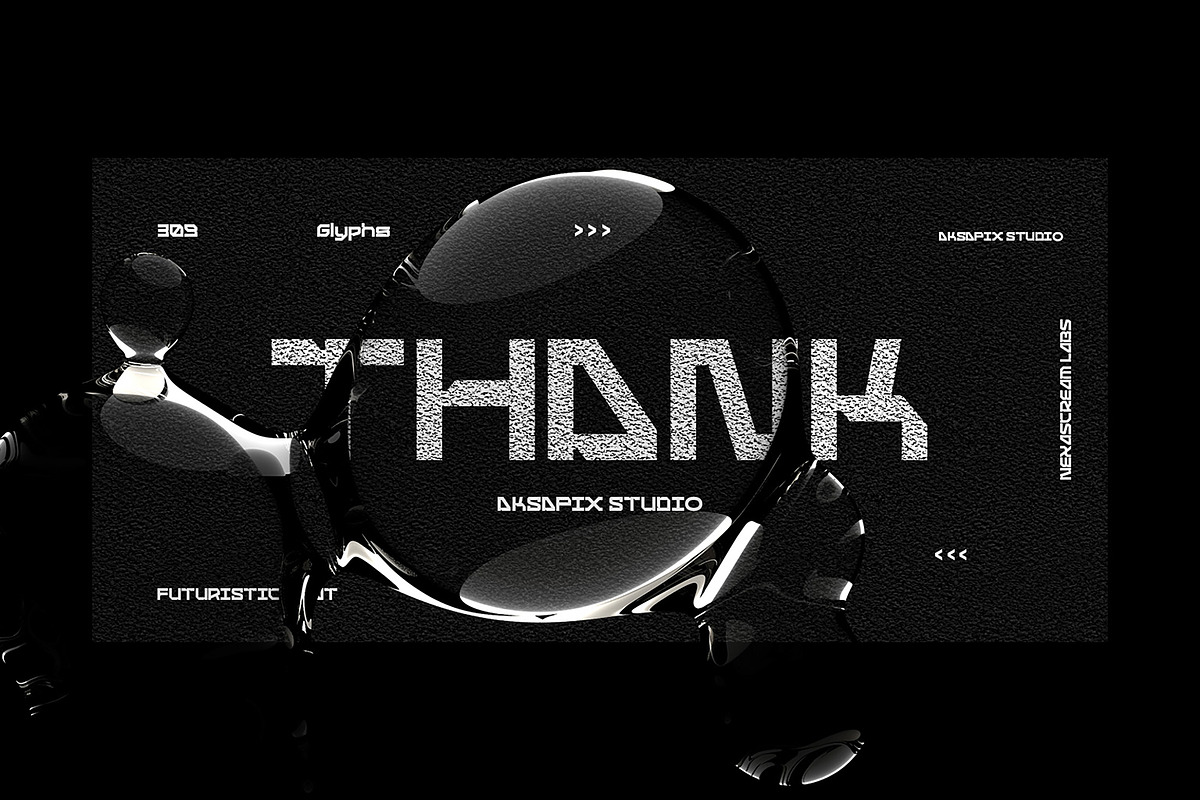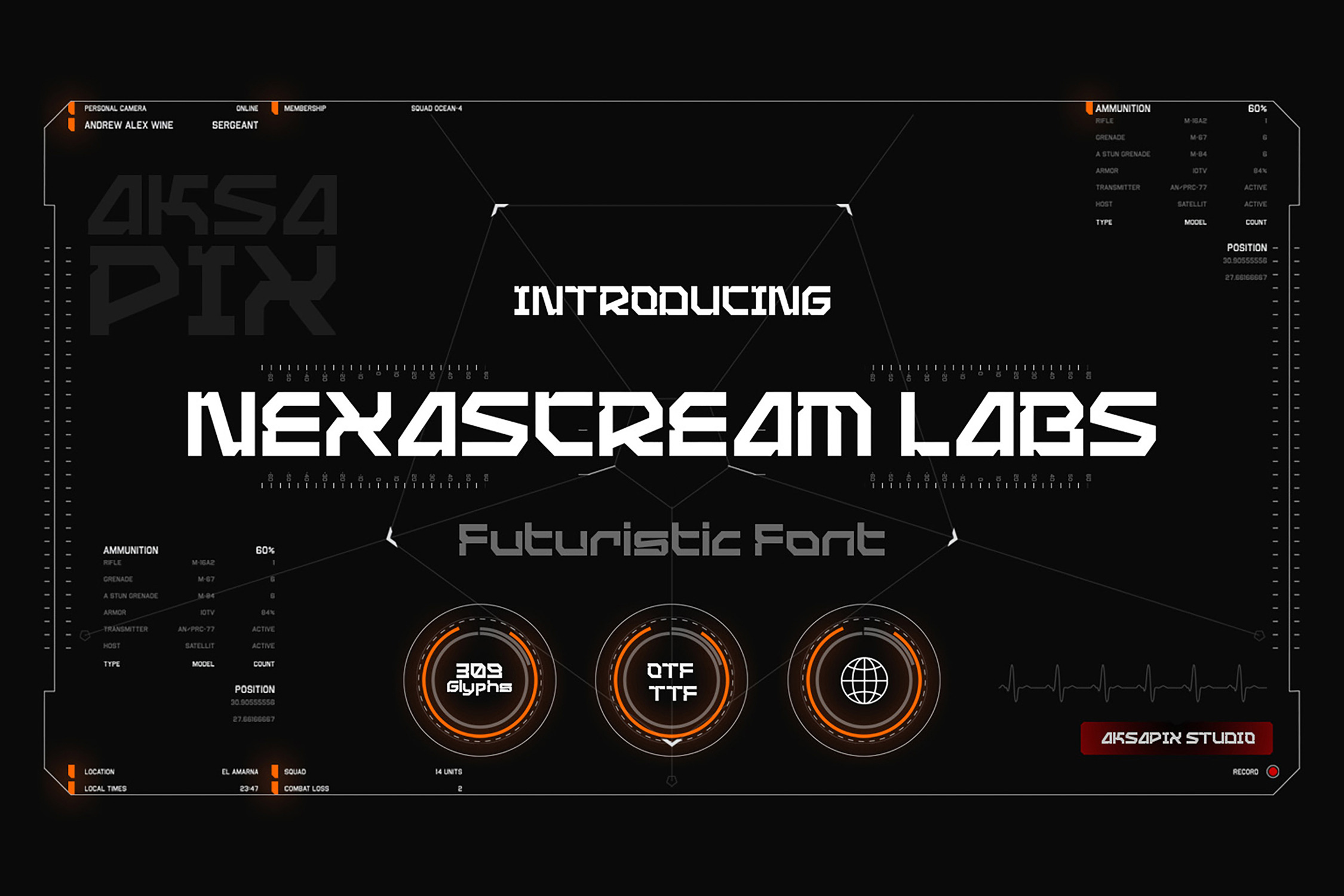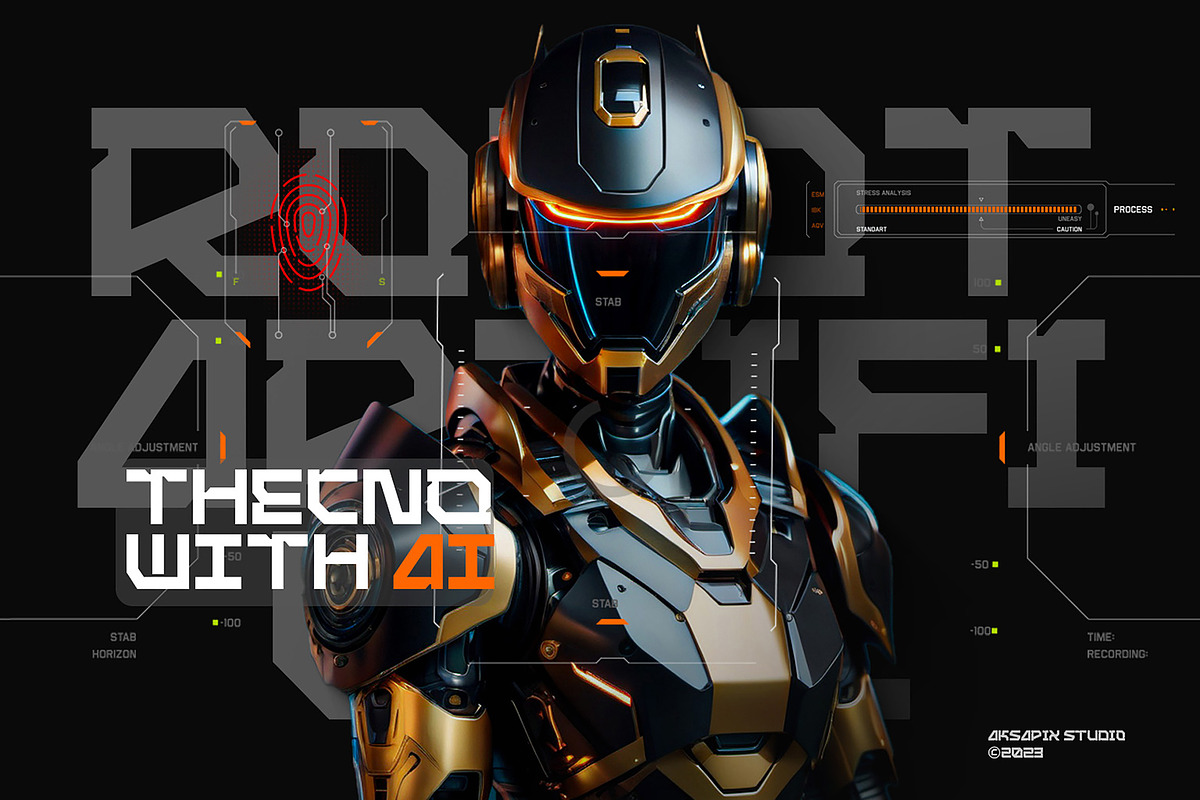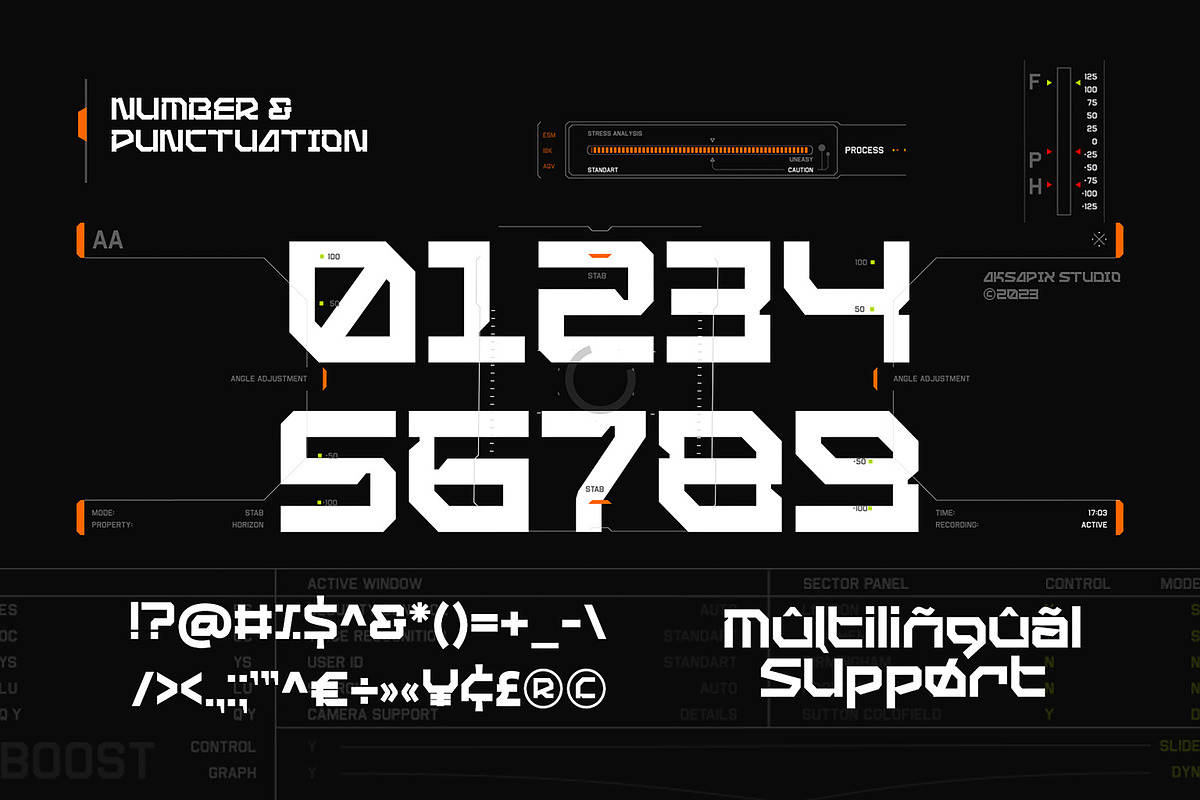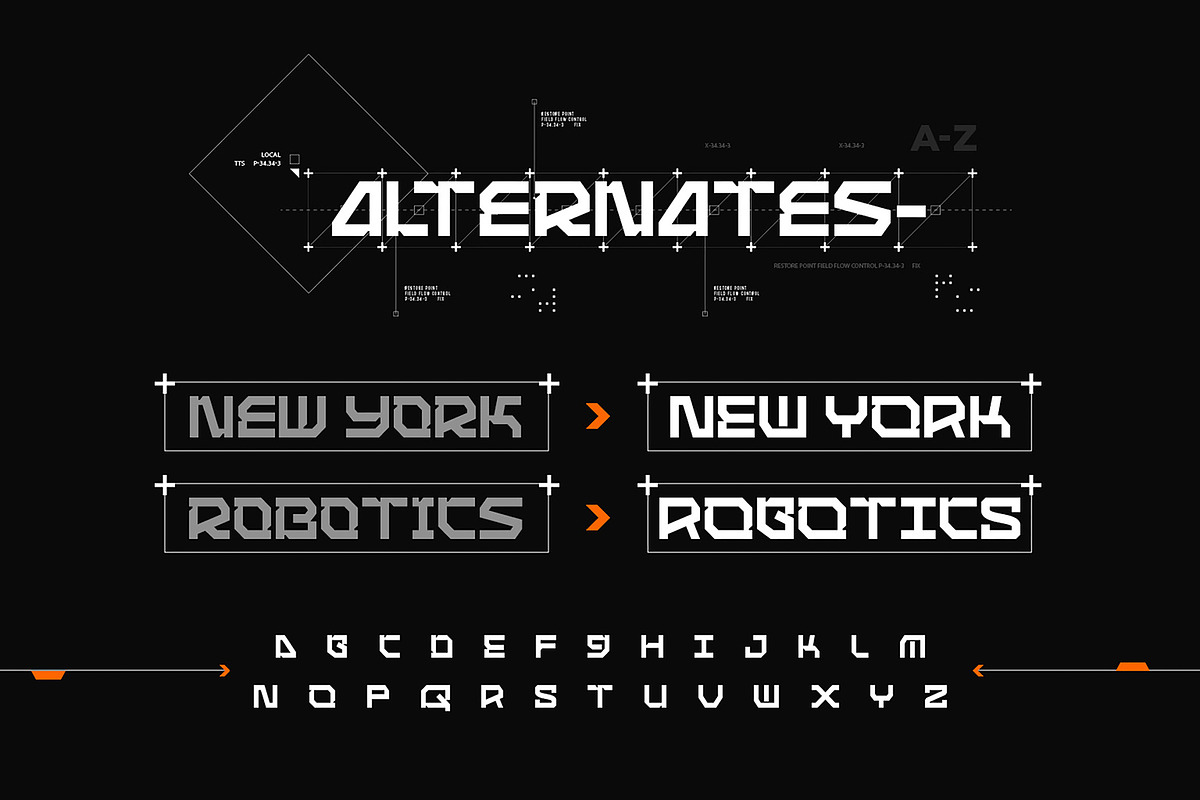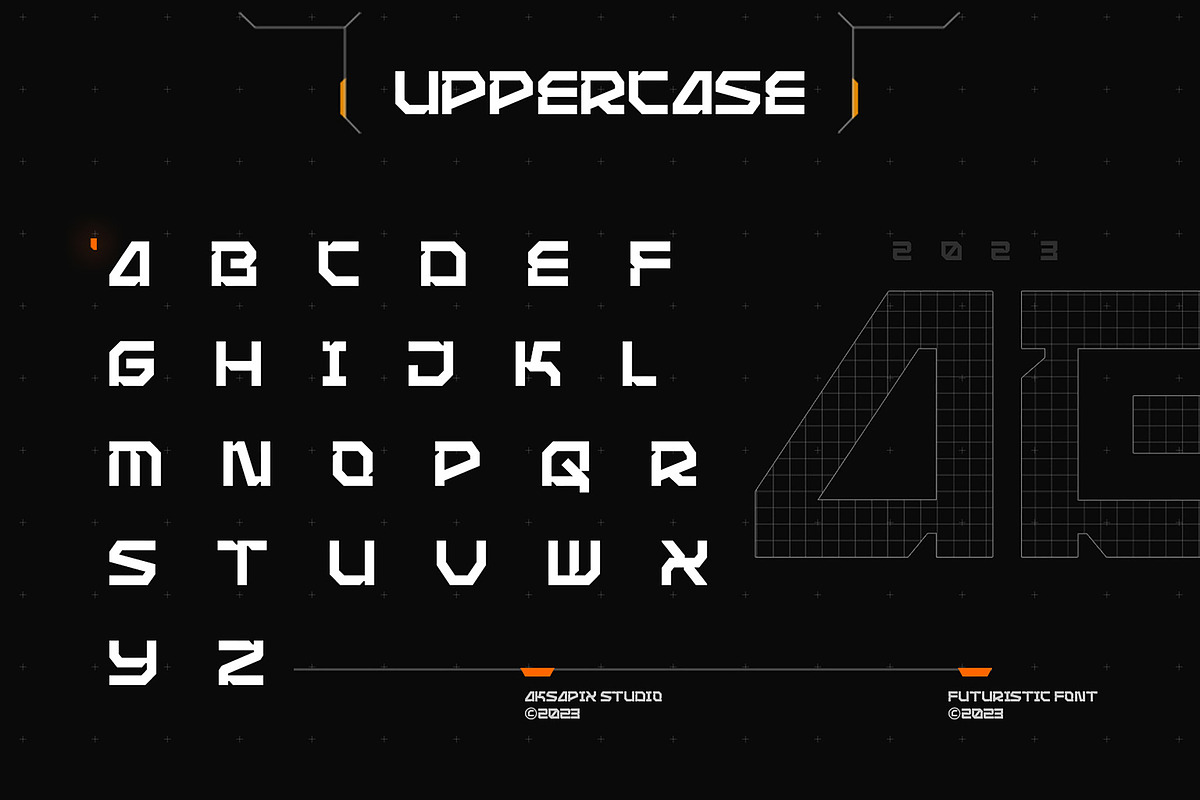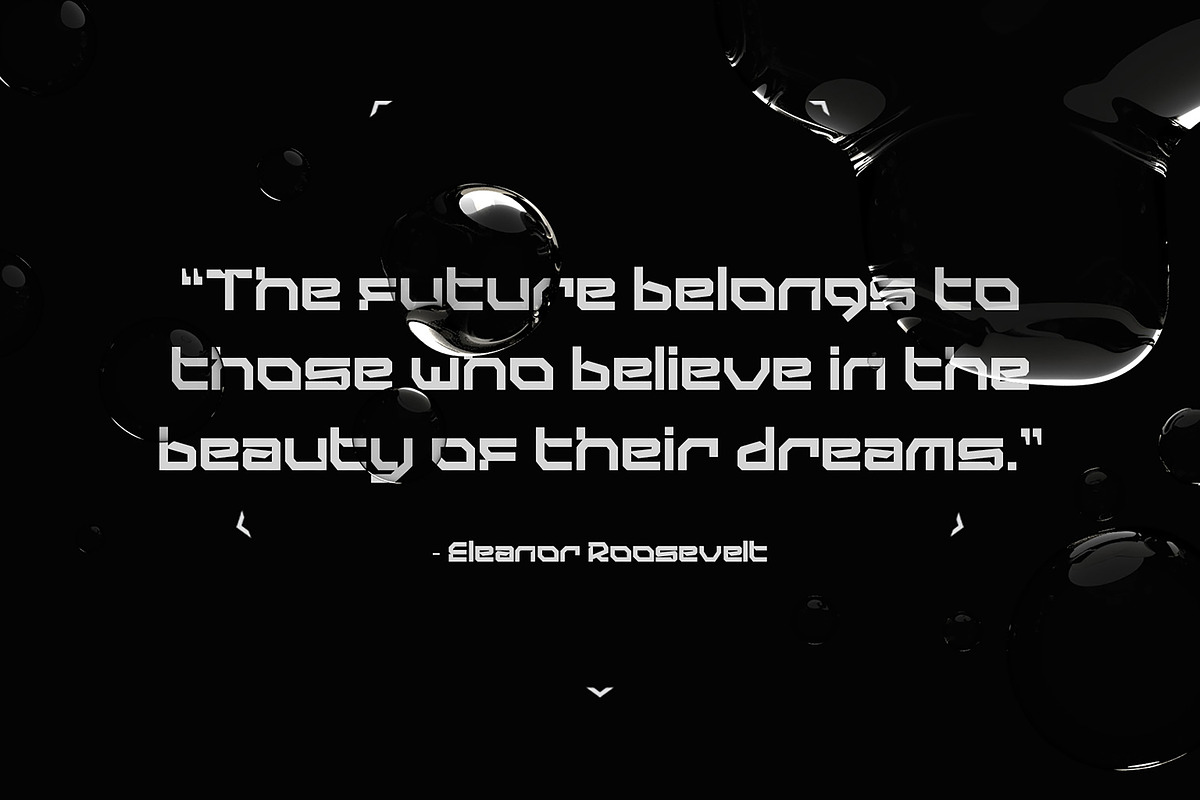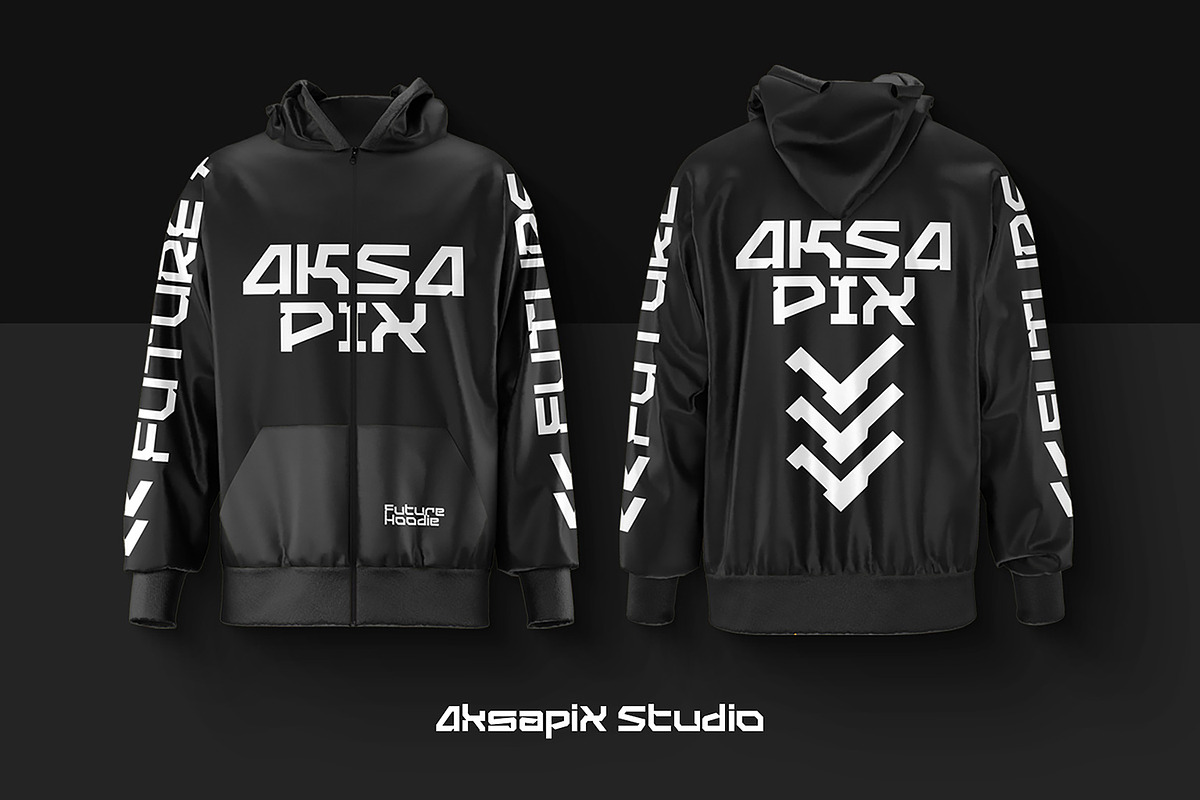
Nexascream Labs - Futuristic Font
Nexascream Labs is a futuristic typeface that combines sleek modernity with a touch of technological elegance. Designed to cater to your creative needs for cutting-edge and forward-looking designs, this font is perfect for a variety of your projects. The font features a distinctive theme of futurism and sophistication, making it an ideal choice for conveying innovation.
- Uppercase + Alternative
- Lowercase + Alternative
- Punctuation & Numbers
Elevate your design projects with the dynamic and versatile "Nexascream Labs," where each glyph provides an alternative option, giving you the creative freedom to craft distinctive and futuristic visuals."